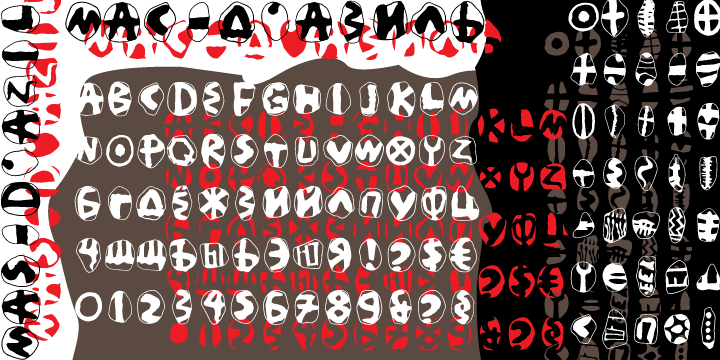
Designed by Dmitry Kirsanov, Mas d'Azil is a dingbat font family. This typeface has two styles and was published by ParaType.
The typeface was designed for ParaType in 2002 by Dmitry Kirsanov. Based on the Mesolithic images on stones were discovered in a prehistoric cave of Mas-d`Azil, France. There is a great number of hypotheses explaining the function of the mysterious stones. They have been considered as vessels of souls, computation tools, fortune-telling and magic symbols, relics of prehistoric writing system.